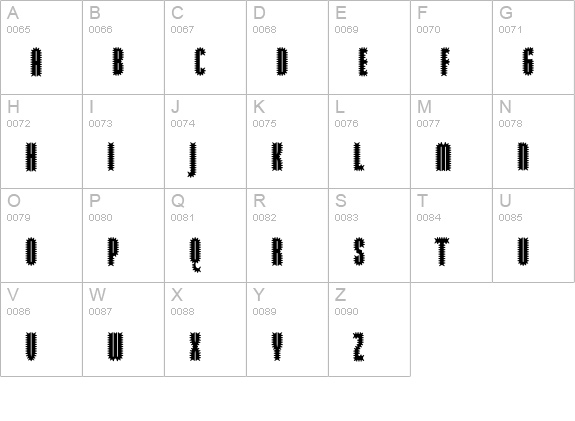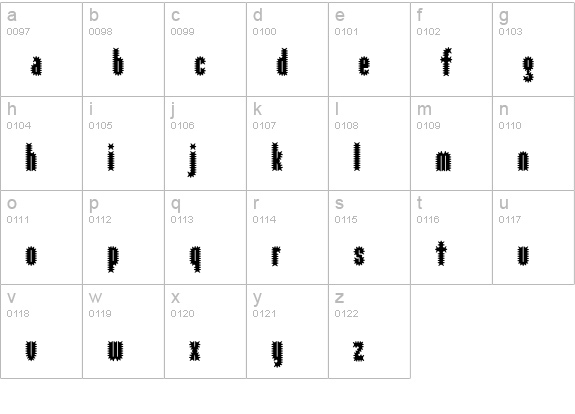
ModulaRibbed Font Details
ModulaRibbed font is a modern and stylish typeface that adds a touch of sophistication to any design project. Its unique ribbed design gives a sense of depth and texture, making it perfect for a variety of applications such as branding, packaging, and advertising. The clean lines and sharp edges of ModulaRibbed font convey a sense of professionalism and elegance. This versatile font is available for free download at FontsMarket.com, allowing designers and creatives to easily access and use it in their projects without any cost. Whether you're creating a sleek logo, eye-catching poster, or elegant wedding invitation, ModulaRibbed font is sure to make a bold statement and leave a lasting impression. Elevate your designs with this striking typeface and unleash your creativity today!